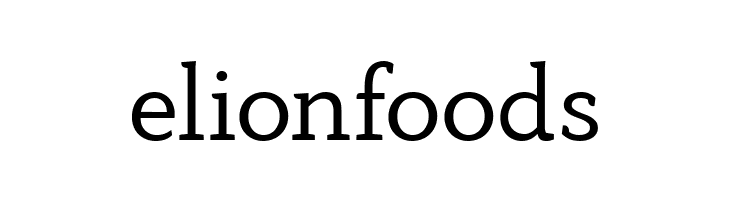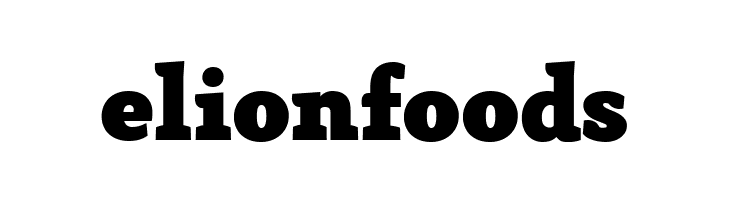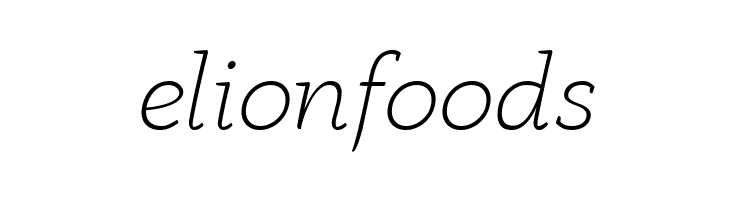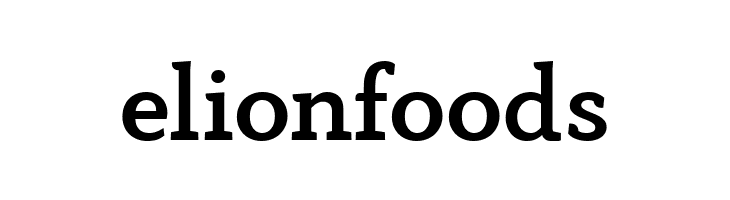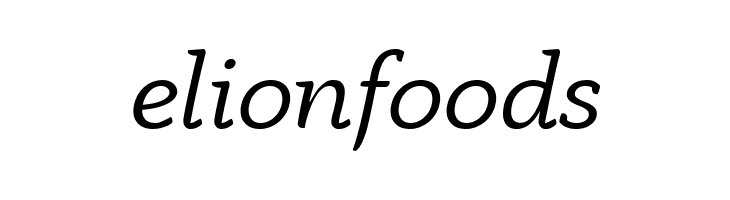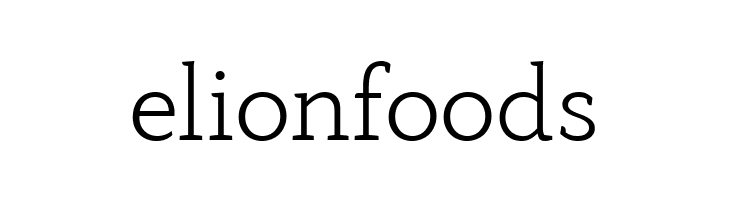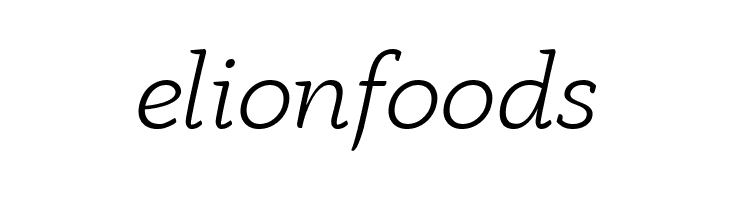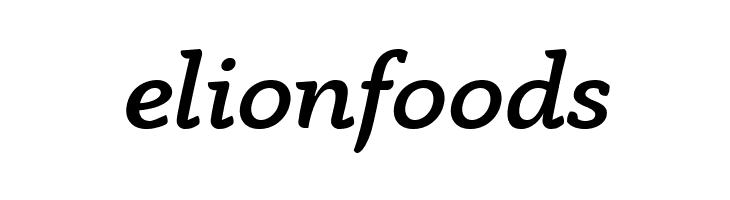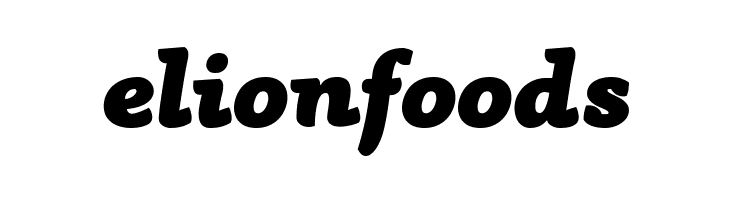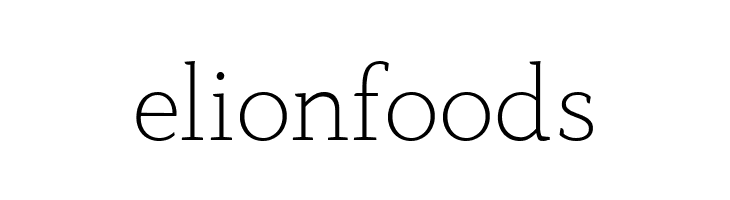
A refined and elegant font with thin, delicate strokes and a modern appearance.
A refined, elegant serif font with a light, italicized style.
A bold, robust font with thick strokes, perfect for impactful headlines.
A bold, italicized font with a dynamic and energetic style.
An elegant italic serif font with smooth curves and a classic style.
A clean, elegant font with a light weight and modern, slightly condensed design.
A light, italicized font with a refined and elegant style.
A modern serif font with medium weight and balanced proportions.
A medium weight, italic serif font with elegant curves and subtle serifs.
A modern serif font with elegant and refined letterforms, suitable for formal use.